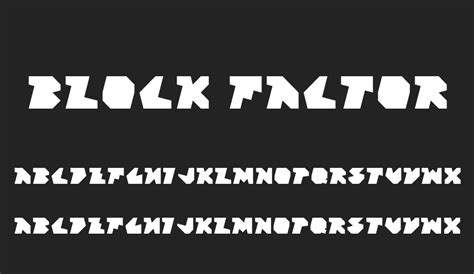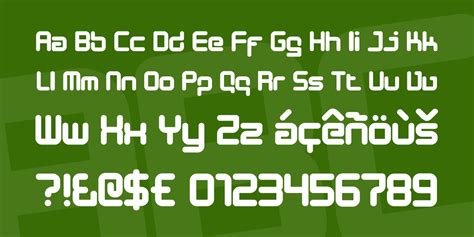
Block Fonts Dafont
Just Coles Block Outlines Font
Block Font
Building Blocks Font
Illinois Block Font
Block Factory Font
BM Block Font
Pixel Block BB Font
Baby Blocks Font
Designer Block Font